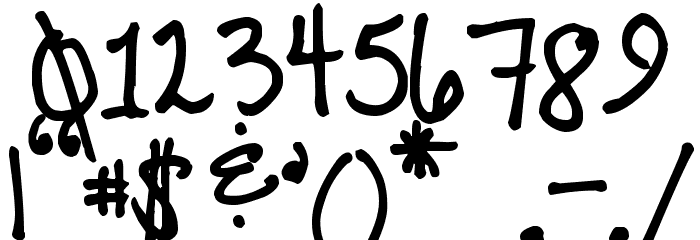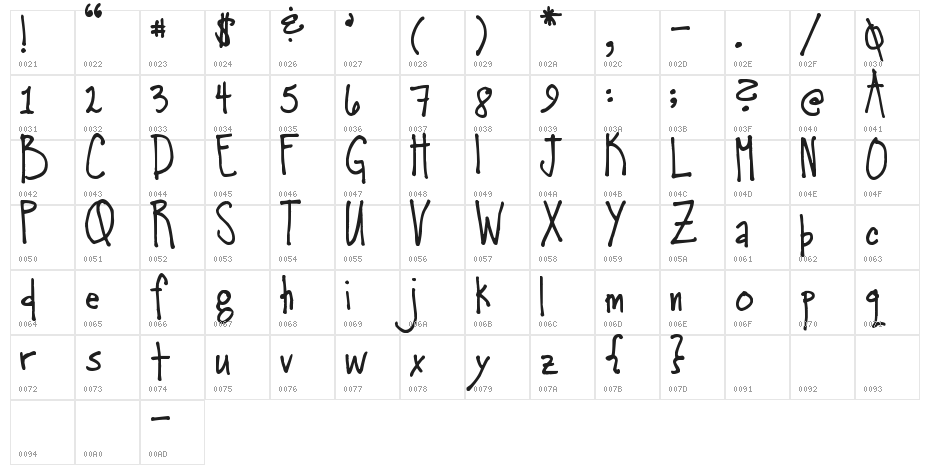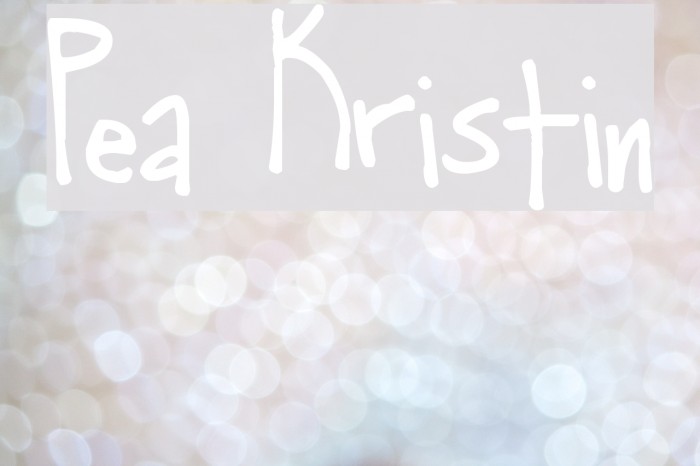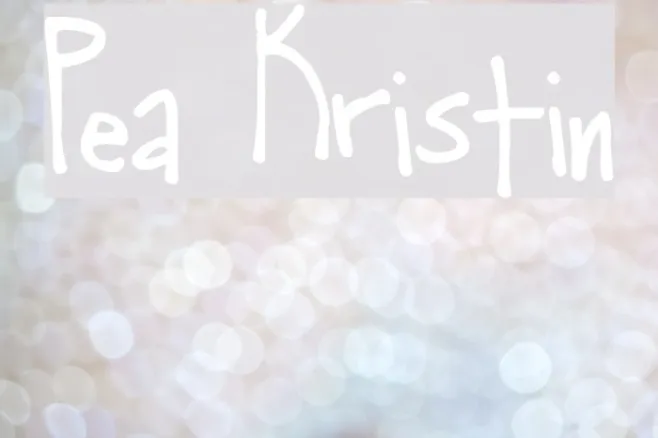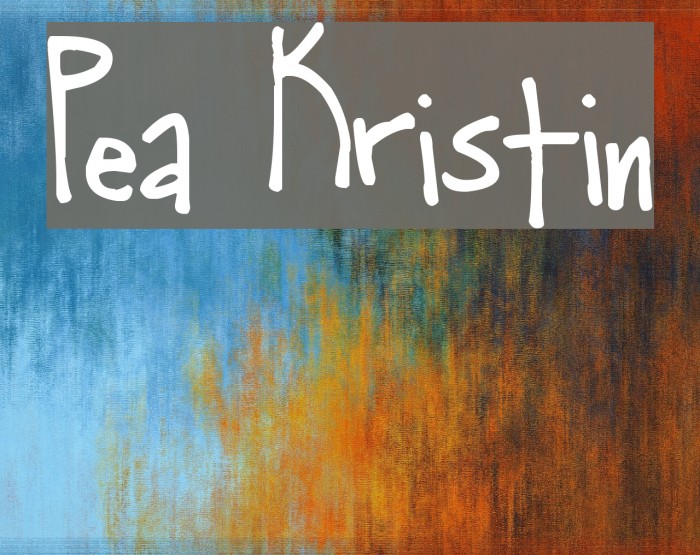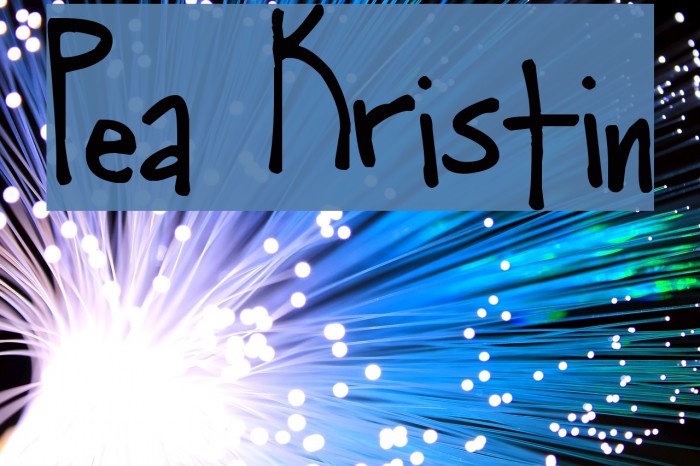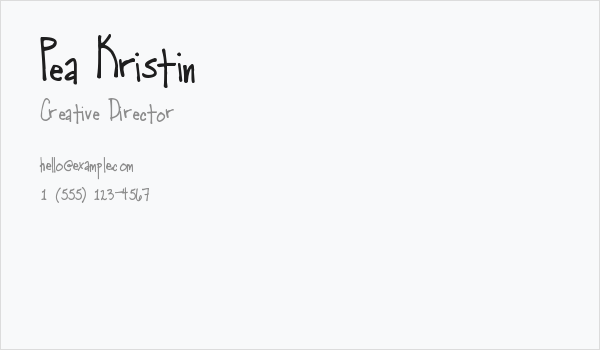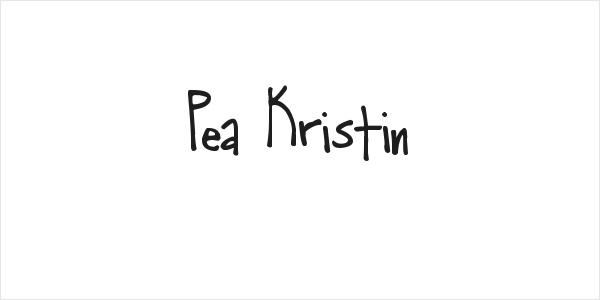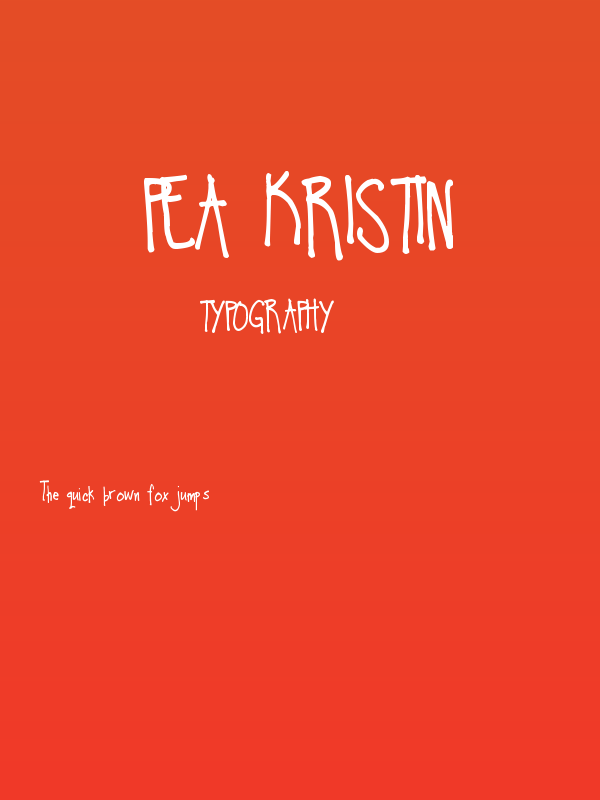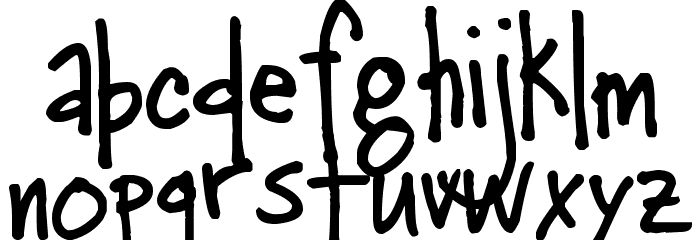
Pea Kristin Font
Pea Kristin Description
This playful and casual handwritten font exudes a personal and informal vibe, reminiscent of a quick note or a friendly letter. The characters are unevenly sized and spaced, adding to its charm and authenticity. The strokes are bold and slightly irregular, giving each letter a unique personality. This font includes a full set of uppercase and lowercase letters, numbers, and a variety of special characters, making it versatile for different uses. Its informal style is perfect for projects that require a personal touch or a relaxed aesthetic.
| Use Case | Logos, Headlines, Informal communications |
| Proposed Projects | Ideal for personal notes, greeting cards, casual invitations, and social media graphics. |